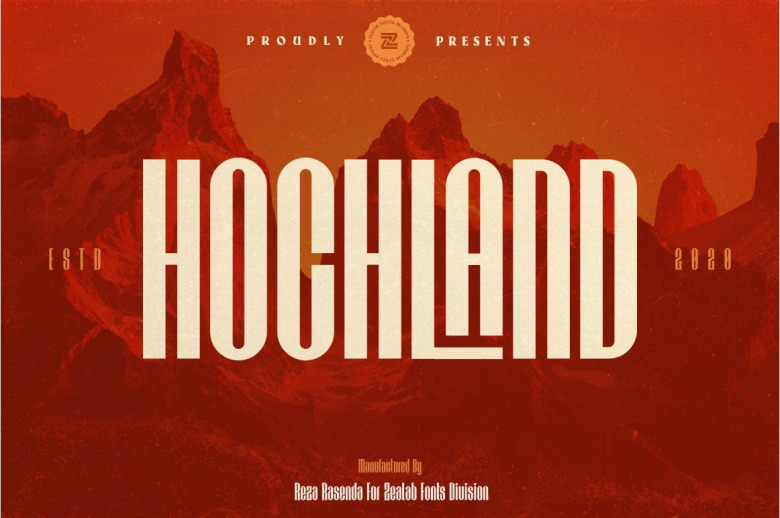
Hochland Font
Hochland is a modern, urban-condensed display font. It has a unique look and feel that will take your designs to the next level. It’s perfect for magazines, logos, social media posts, book covers and much more!
Hochland Display Font